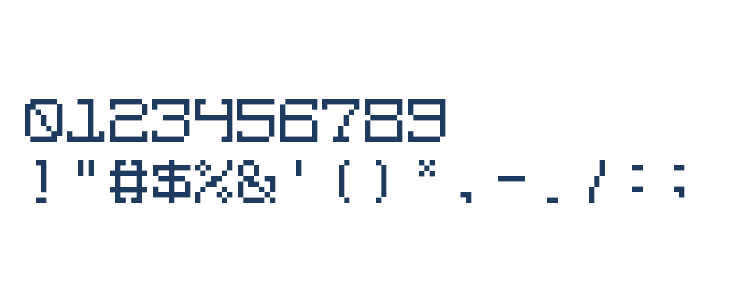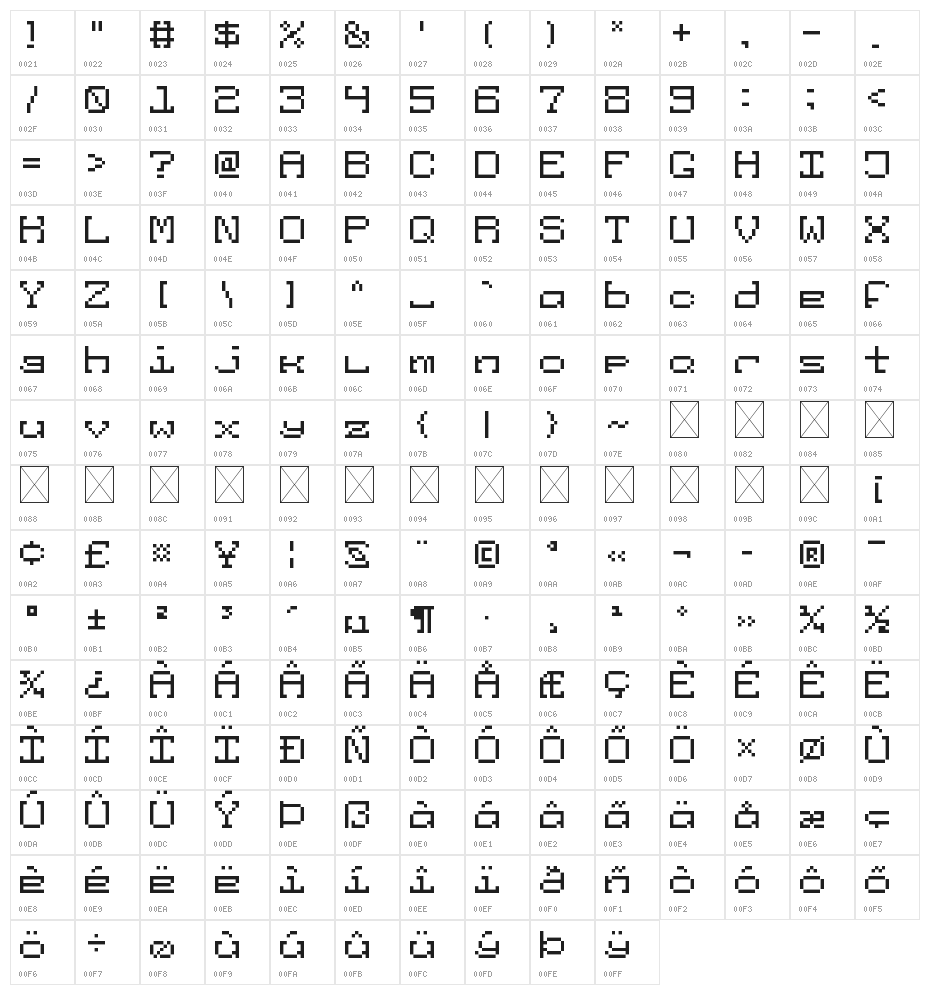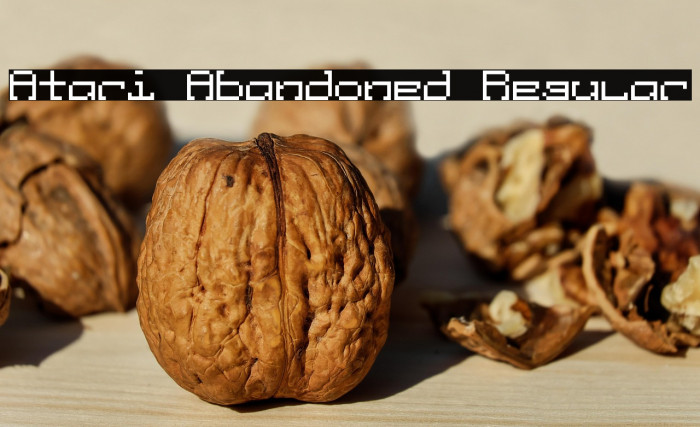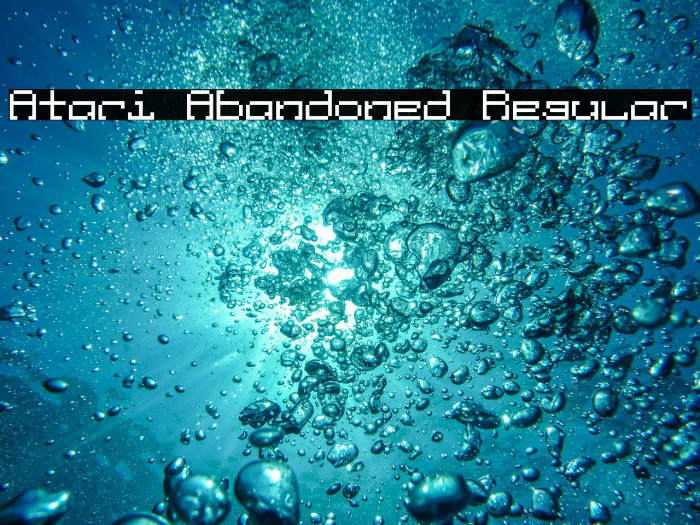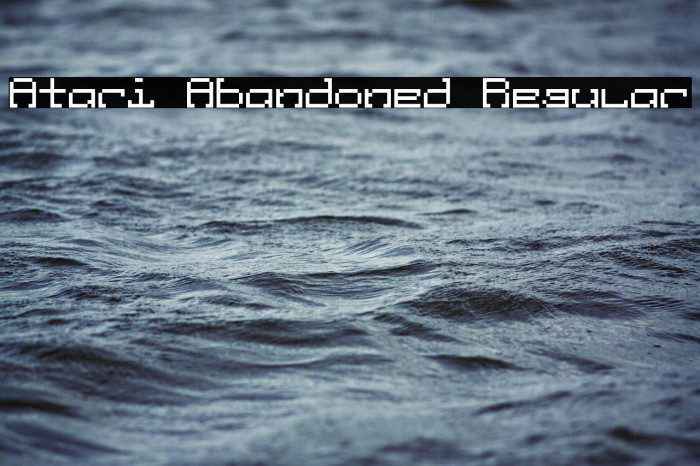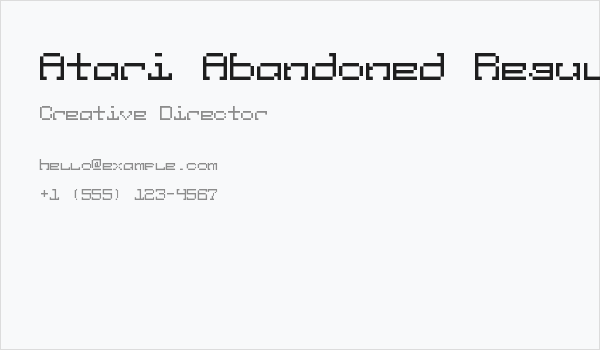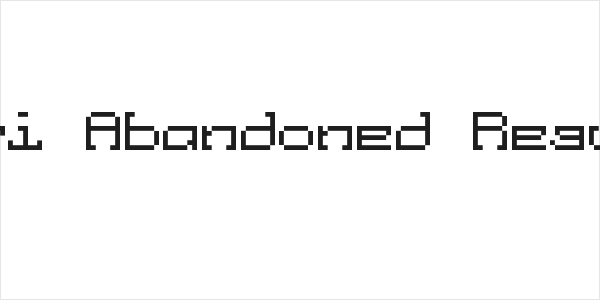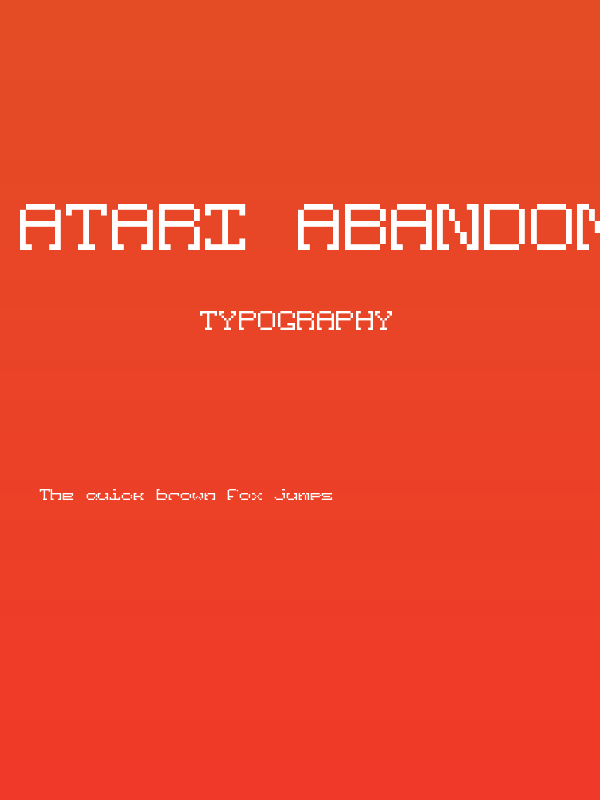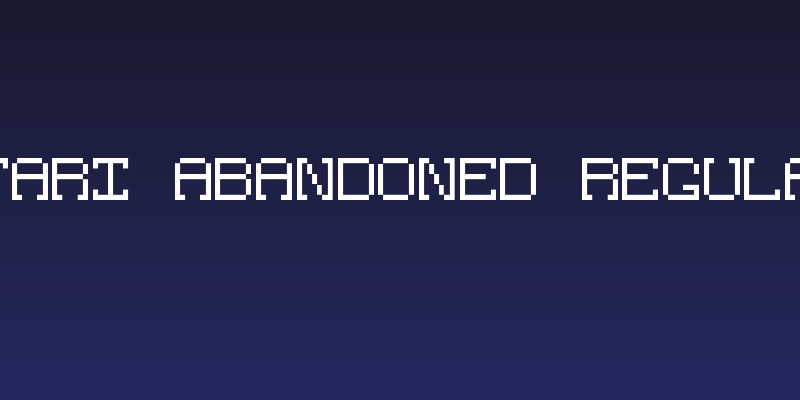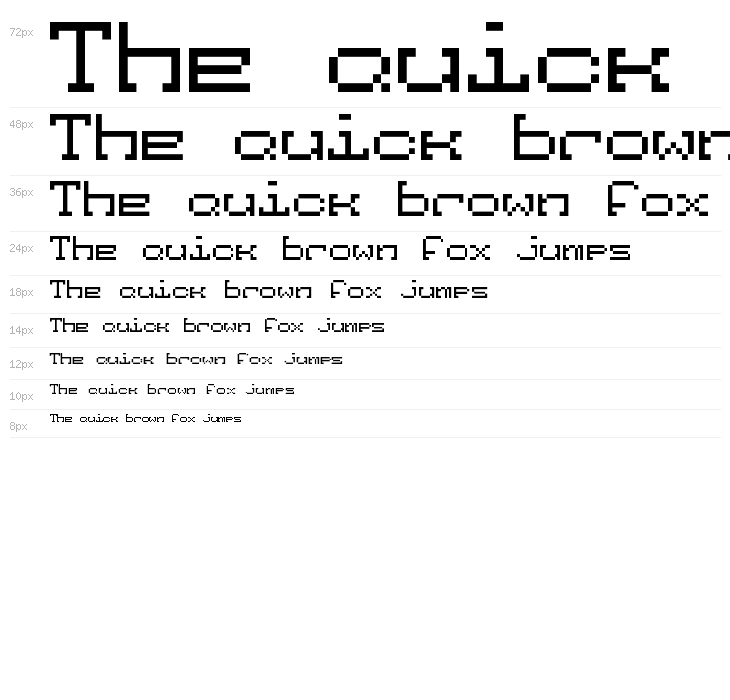
Atari Abandoned Regular Font
Atari Abandoned Regular Description
This font features a distinct retro, pixelated style reminiscent of early video game graphics. Each character is formed with a grid-like structure, giving it a blocky and geometric appearance. The uppercase and lowercase letters maintain a consistent height, with sharp angles and straight lines dominating the design. Numbers and special characters follow the same aesthetic, ensuring uniformity across the font. The overall look is clean and minimalistic, yet it carries a nostalgic charm that evokes memories of classic arcade games.
| Use Case | Logos, Headlines, Retro-themed designs |
| Proposed Projects | Ideal for projects that aim to capture a vintage gaming aesthetic, such as retro-themed websites, video game designs, or nostalgic branding materials. |